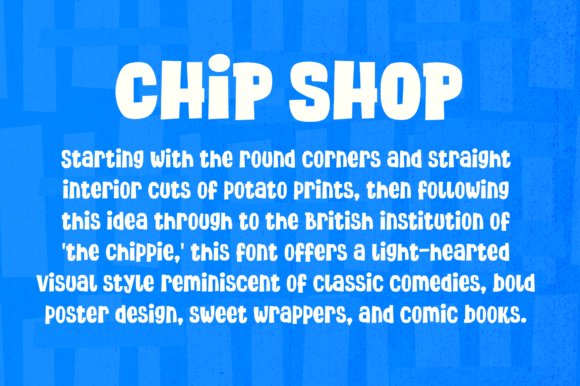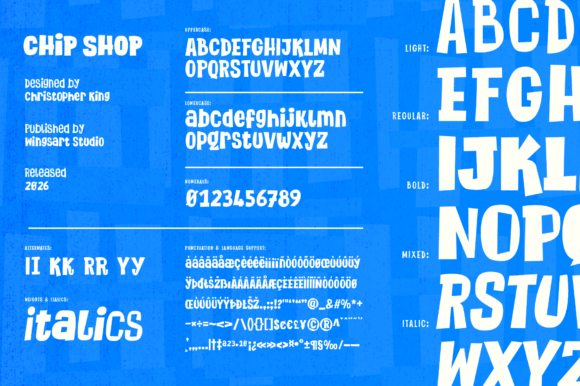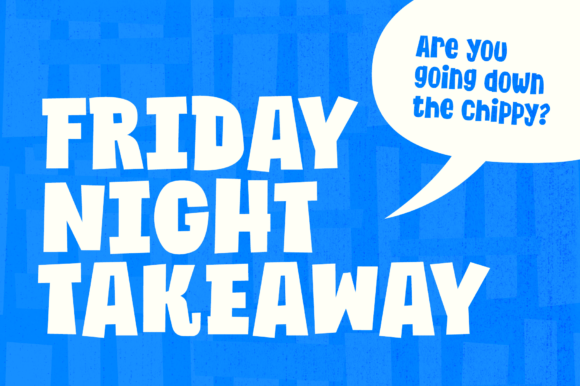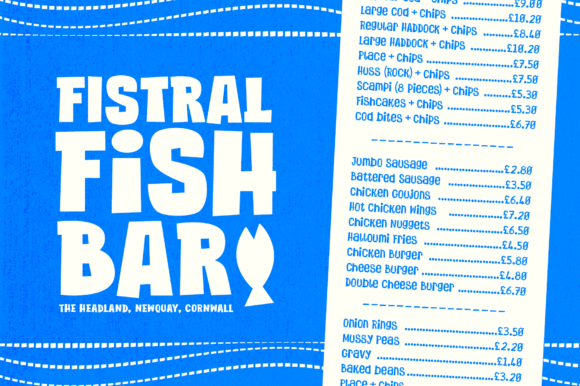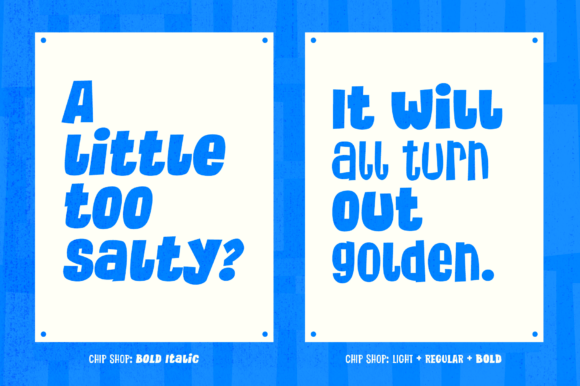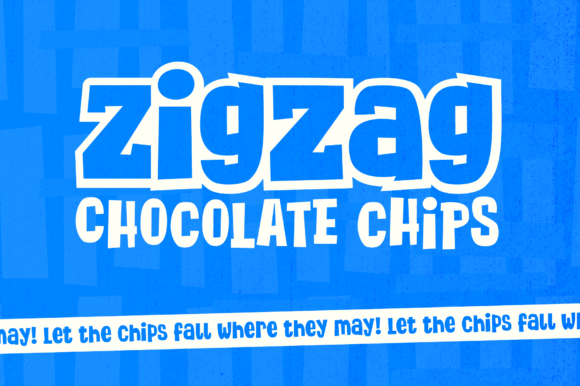
Introducing Chip Shop Font: A Playful Display Font Inspired by British Comedy
Are you looking for a font that can add a dash of humor and whimsy to your design projects? Look no further than Chip Shop, a display font that embodies the lighthearted spirit of British comedy. Inspired by the rounded corners and straight interior cuts of potato prints, Chip Shop is a versatile font family that is perfect for creating bold and expressive titles, headers, and sub-headers.
The Inspiration Behind Chip Shop
Chip Shop takes its cue from the British institution of ‘the Chippie,’ a colloquial term for a fish and chip shop. The font’s design is rooted in the playful, carefree nature of classic comedies, bold poster design, sweet wrappers, and comic books. The result is a font that exudes a wry sense of humor, making it perfect for designers who want to add a touch of personality to their work.
Design Features and Characteristics
Chip Shop is a display font that features simplified shapes, round corners, and straight interior cuts. The font family includes three weights – light, regular, and bold – as well as a mixed weight stylistic alternative. This range of options allows designers to choose the perfect weight to suit their design needs. Additionally, each weight comes with a complete italic version, providing even more flexibility.
The font includes a complete uppercase and lowercase alphabet, numerals, punctuation, symbols, and multilingual support. This extensive character set makes Chip Shop a versatile font that can be used across a range of design projects, from posters and flyers to digital graphics and websites.
Whether you’re a designer, crafter, or DIY enthusiast, Chip Shop is a font that’s sure to inspire. Its bold and expressive design makes it perfect for a range of projects, from handmade crafts to professional design work. The font’s playful, lighthearted nature also makes it ideal for projects that require a touch of humor and whimsy.
Using Chip Shop in Your Design Projects
So, how can you use Chip Shop in your design projects? Here are a few ideas to get you started:
• Use Chip Shop to create bold and eye-catching titles and headers for posters, flyers, and brochures.
• Add a touch of humor and whimsy to your digital graphics and social media posts with Chip Shop’s playful design.
• Use Chip Shop to create custom signage and branding for your business or event.
• Pair Chip Shop with other fonts to create a unique and eye-catching design.
In conclusion, Chip Shop is a versatile and playful display font that’s perfect for designers and crafters who want to add a touch of humor and whimsy to their design projects. With its simplified shapes, round corners, and straight interior cuts, Chip Shop is a font that’s sure to inspire. Its extensive character set, PUA-encoding, and range of weights make it a practical choice for designers, while its bold and expressive design makes it perfect for a range of creative projects.